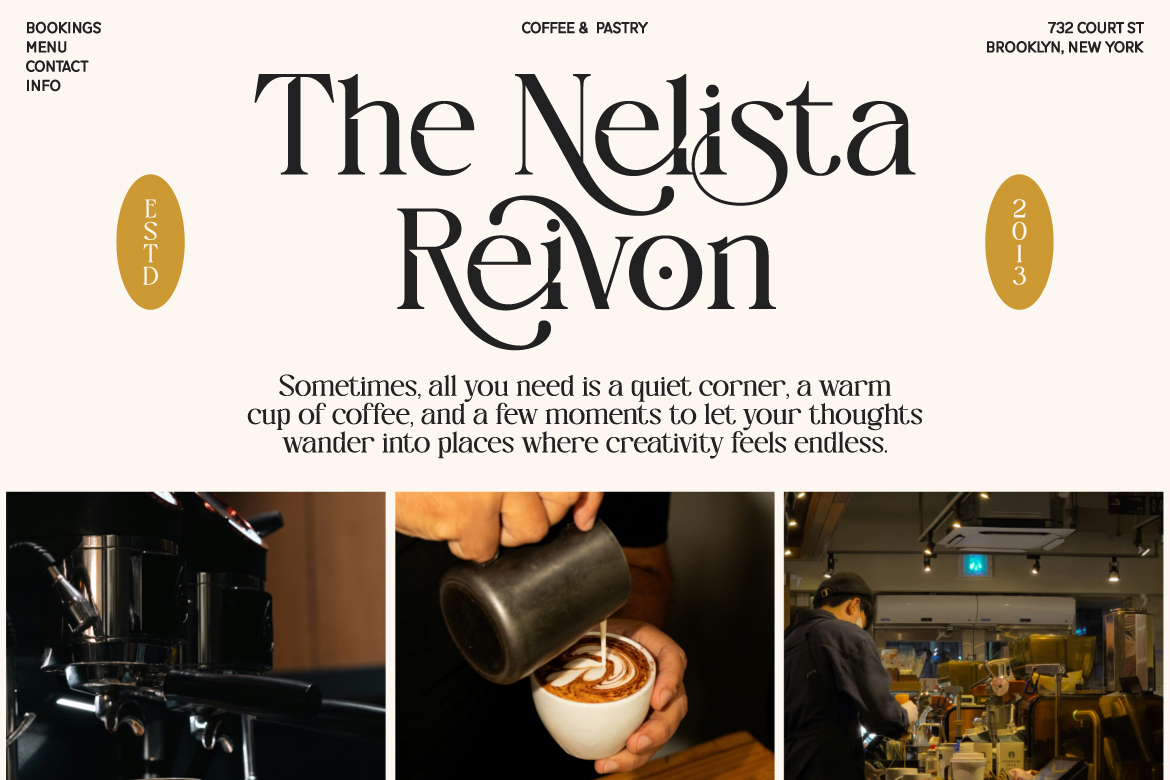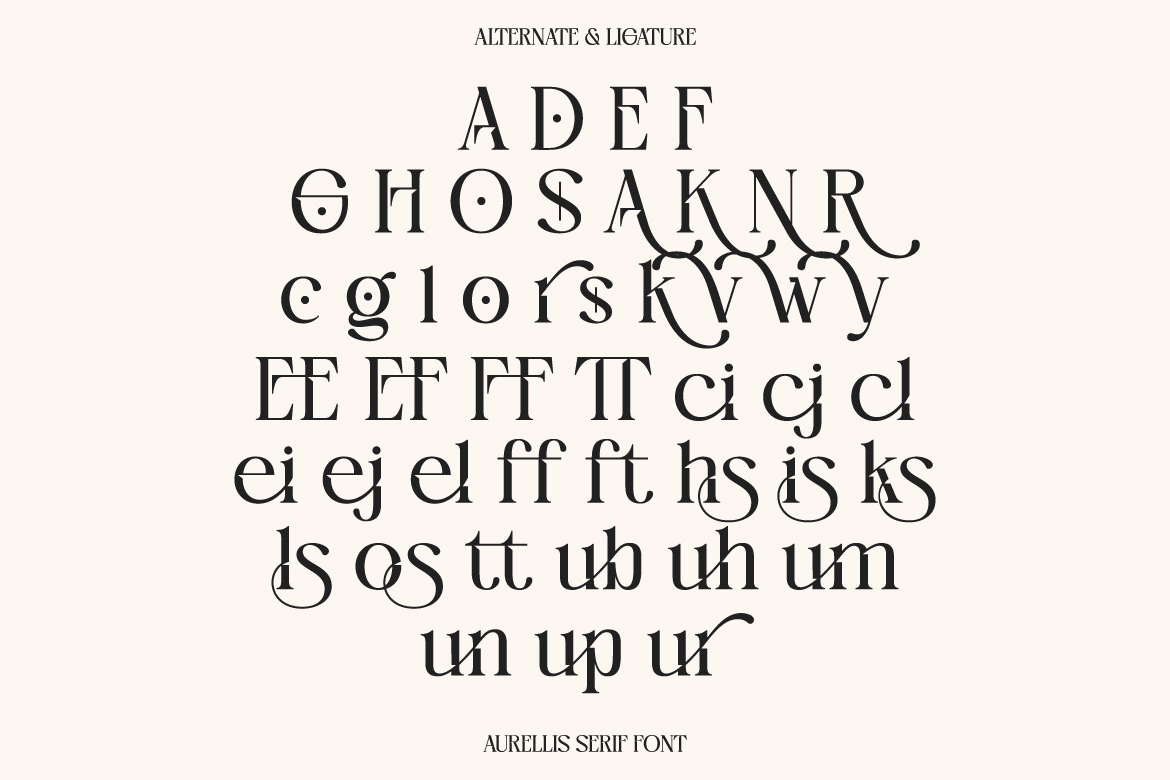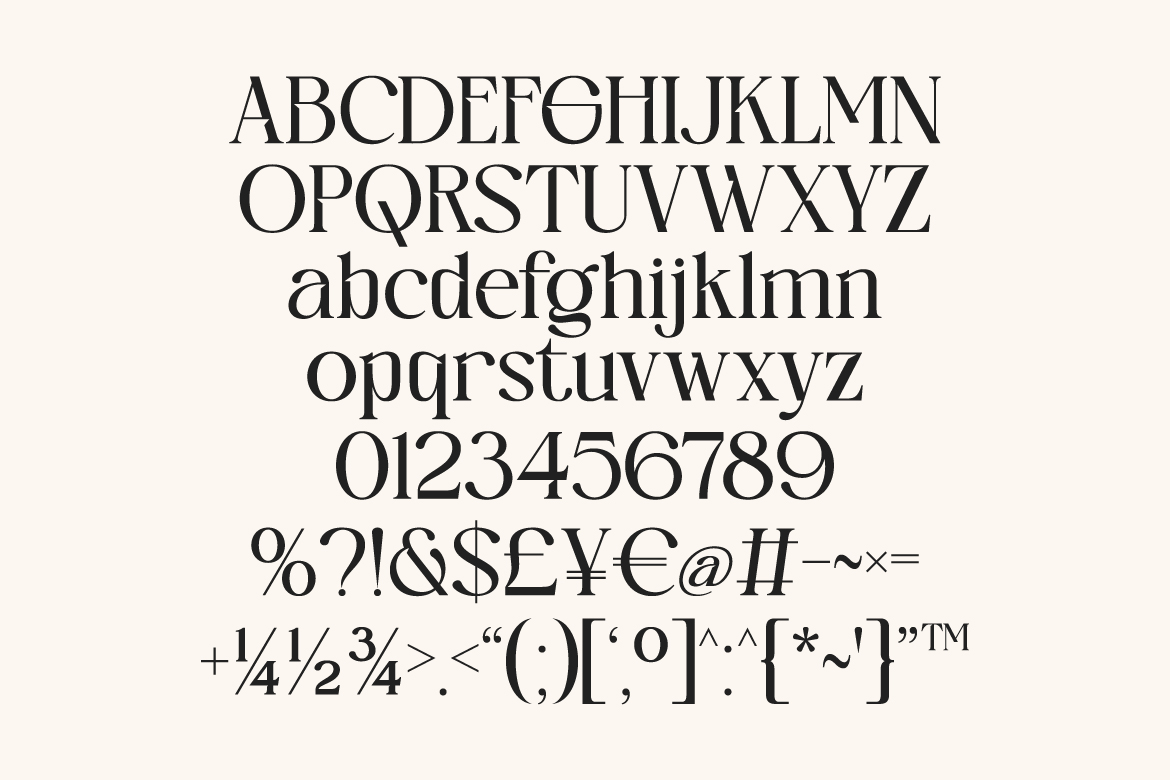
Aurellis Font: Elegant Luxury Serif Typeface for Premium Branding
In the world of graphic design, choosing the right typeface is essential for building a strong visual identity. A well-crafted font can instantly communicate elegance, professionalism, and brand value. One of the best choices for achieving a luxurious and modern look is the Aurellis Font.
If you’re searching for a high-end serif typeface that blends classic beauty with contemporary style, Aurellis is a perfect option for a wide range of creative projects.
What is Aurellis Font?
Aurellis is a modern serif typeface designed with a balance of elegance and readability. It features high-contrast strokes, refined curves, and stylish letterforms that create a premium and sophisticated appearance.
Aurellis includes:
These features make it a complete solution for professional designers and branding experts.
Key Features of Aurellis Font
1. High-Contrast Serif Style
Aurellis uses a strong contrast between thick and thin strokes, giving it a luxurious and editorial feel often seen in high-end fashion brands.
2. Elegant and Artistic Curves
Each character is carefully designed with smooth curves and refined details, creating a classy and feminine touch.
3. Stylish Ligatures
The font includes beautiful ligatures that enhance the flow of letters, making your designs more natural and visually appealing.
4. Alternate Characters
With stylistic alternates, you can explore different variations and create unique typographic compositions.
5. Professional Multilingual Support
Aurellis supports multiple languages, making it suitable for global branding and international projects.
Best Uses for Aurellis Font
Aurellis is a versatile font that works well across many design categories:
1. Logo & Branding
Perfect for luxury brands such as fashion, beauty, jewelry, and boutique businesses. It instantly elevates brand perception.
2. Editorial Design
Ideal for magazine titles, headlines, and sophisticated layouts thanks to its clean yet expressive style.
3. Wedding & Event Design
Its elegant appearance makes it a great choice for invitations, greeting cards, and formal event materials.
4. Social Media & Website Design
Use Aurellis for Instagram posts, banners, and landing pages to create a premium and aesthetic look.
5. Packaging Design
Enhance your product packaging with a font that communicates exclusivity and quality.
Why Choose Aurellis Over Other Serif Fonts?
There are many serif fonts available, but Aurellis stands out for several reasons:
Pro Tips for Using Aurellis Font
To get the best results, consider these tips:
Conclusion
Aurellis is a beautifully crafted serif font that combines elegance, versatility, and modern sophistication. Whether you’re working on branding, editorial design, or social media content, this typeface can significantly enhance your visual identity.
For designers who want to create a premium and timeless look, Aurellis is definitely worth adding to your font collection.